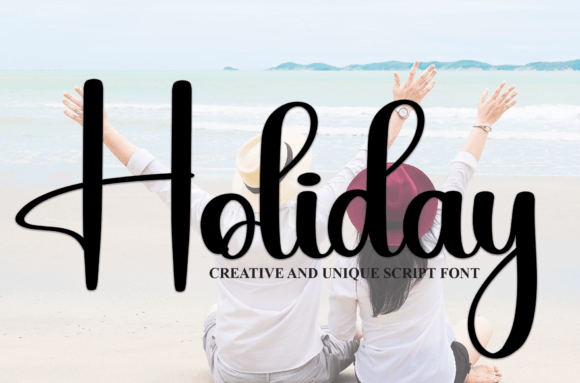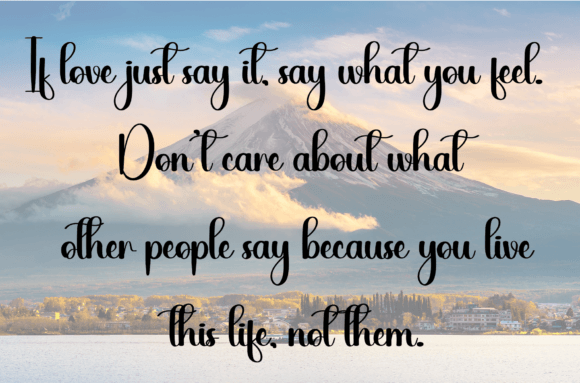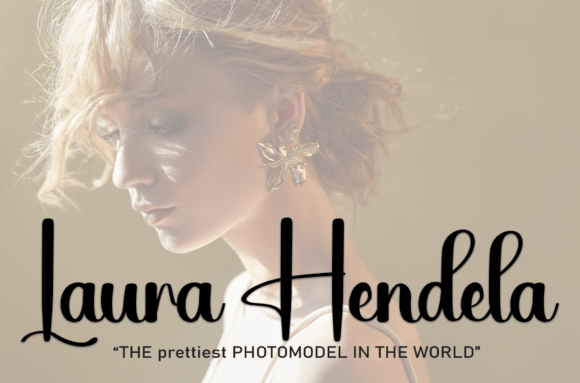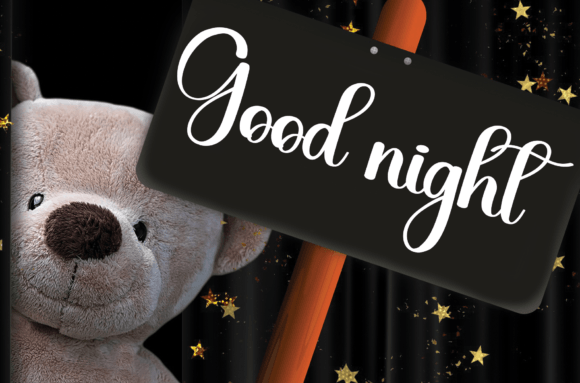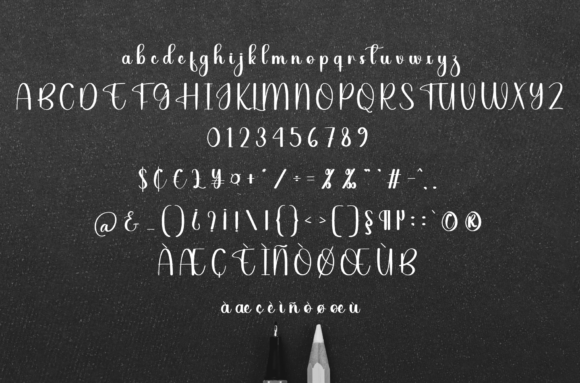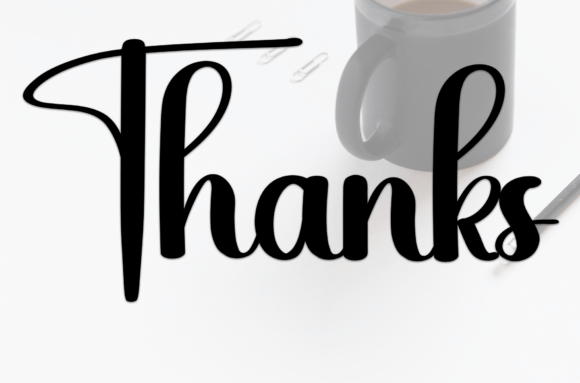
Beach
About Beach
Beach is a sweet and friendly handwritten font. Creative and cute, this font is ideal for writing wedding invitations, cards, or any other design that might need a fun touch!